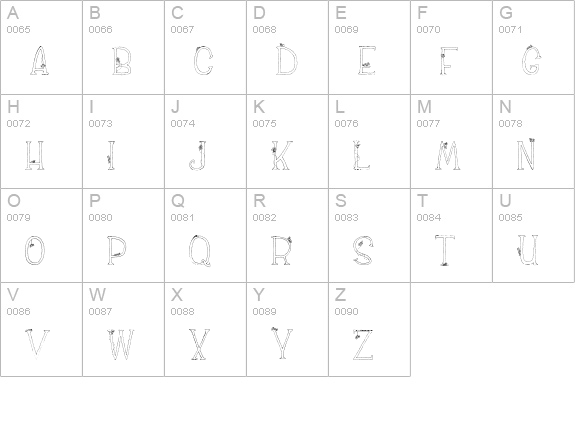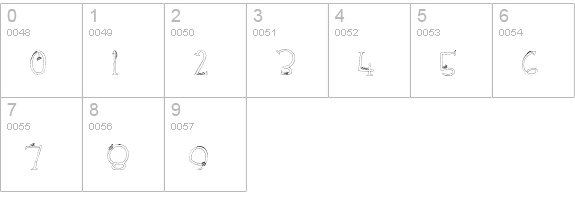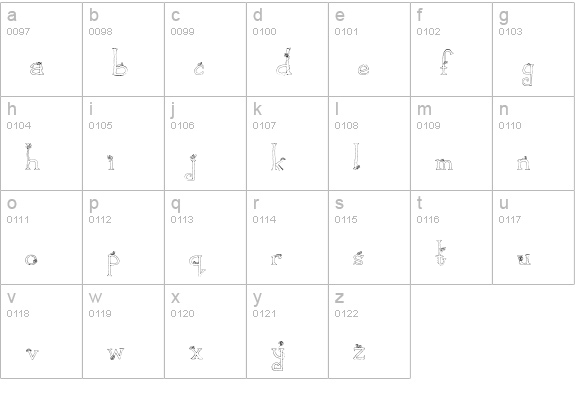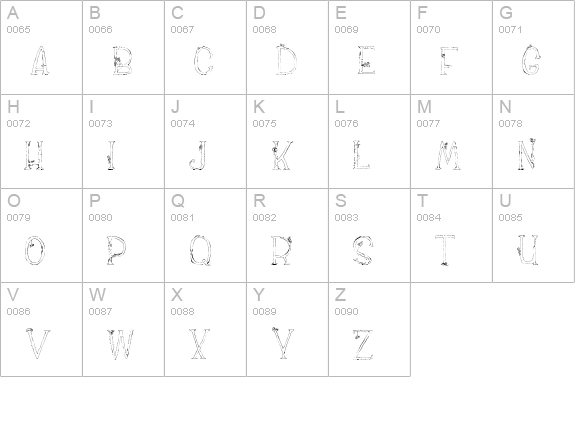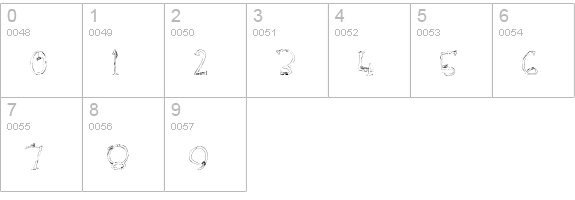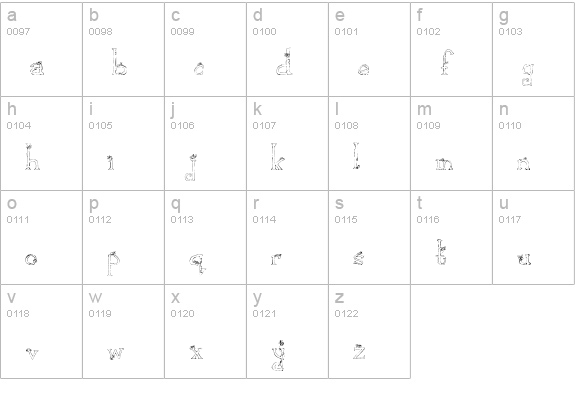
CK Creepy Crawlies Font Details
Introducing CK Creepy Crawlies font - a spine-chilling typeface designed to add a touch of eerie charm to your projects. This font features twisted, insect-like letterforms that are perfect for Halloween-themed designs, horror movie posters, or anything that needs a creepy twist. The intricate details and jagged edges of CK Creepy Crawlies will send shivers down your spine and give your designs a truly haunting vibe. Best of all, CK Creepy Crawlies font is available for free download at FontsMarket.com. Whether you're a designer looking to add a touch of macabre flair to your work or just a fan of all things spooky, this font is sure to become a favorite in your collection. Download CK Creepy Crawlies today and let your creativity crawl into the shadows.